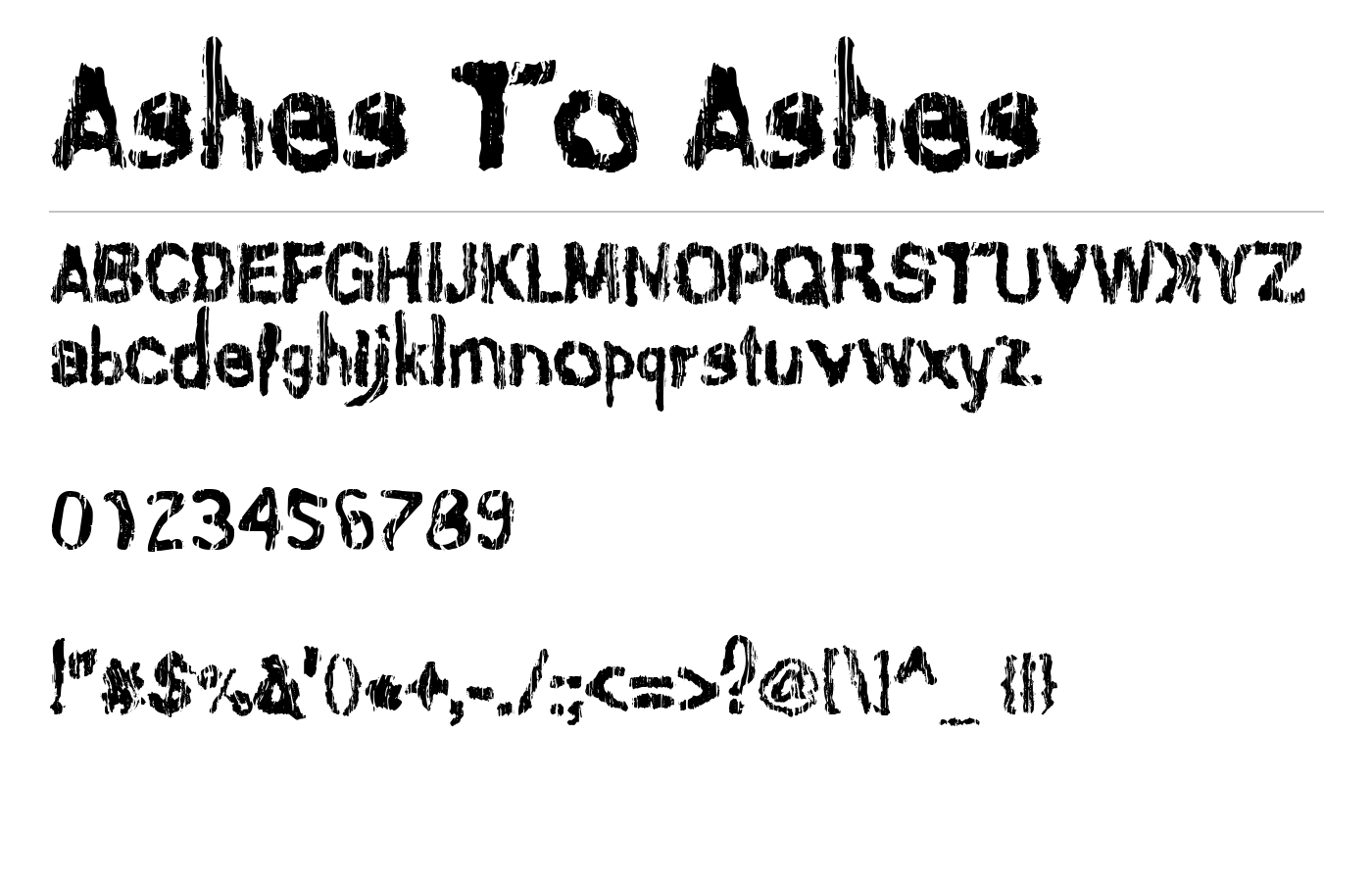
Ashes To Ashes is a distressed, grungy sans serif font with a rough, textured appearance that evokes a gritty, raw feeling. Its irregular edges and uneven strokes give it a handmade, expressive character, making it perfect for designs that seek to convey edginess, rebellion, or an urban vibe. This font works well in bold headlines, posters, and creative branding where a strong, unconventional visual impact is desired.
Ashes To Ashes Font
About Ashes To Ashes Font